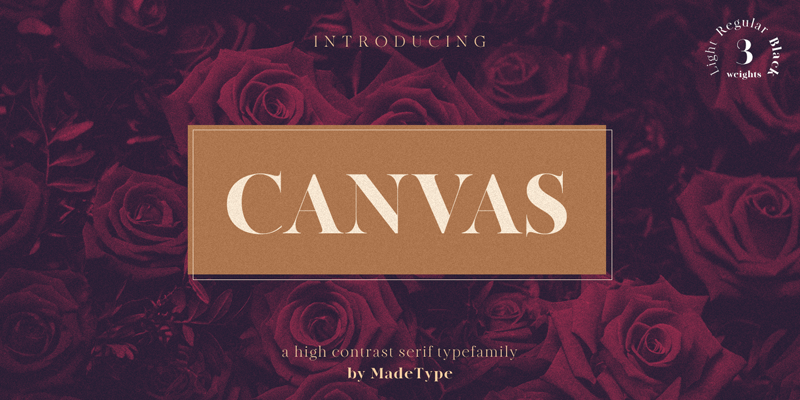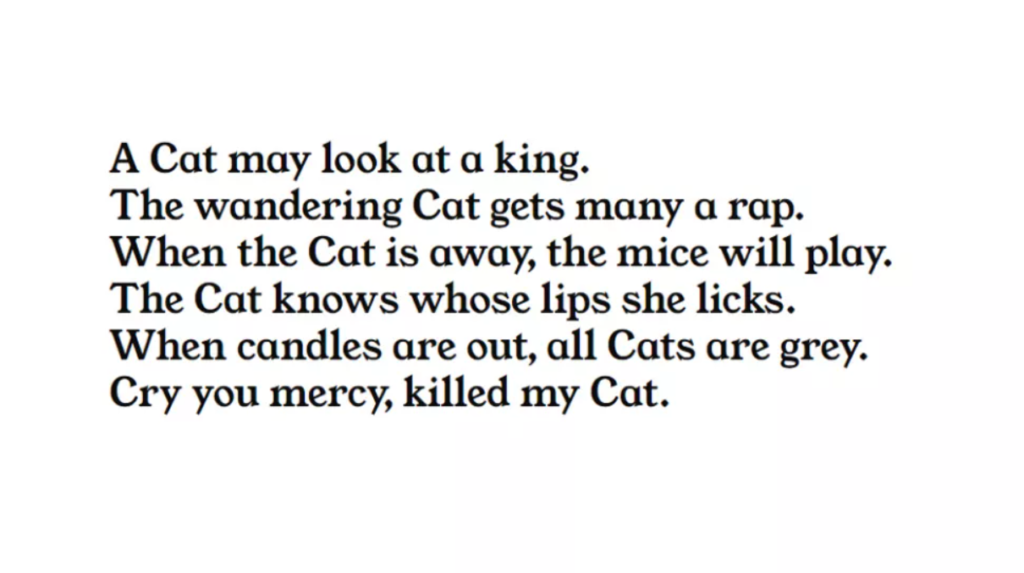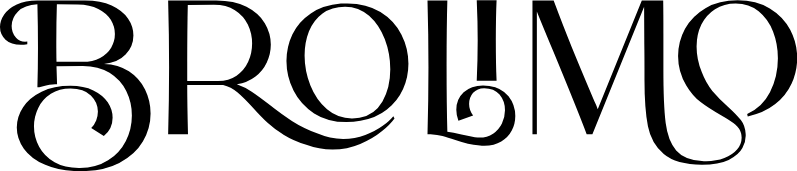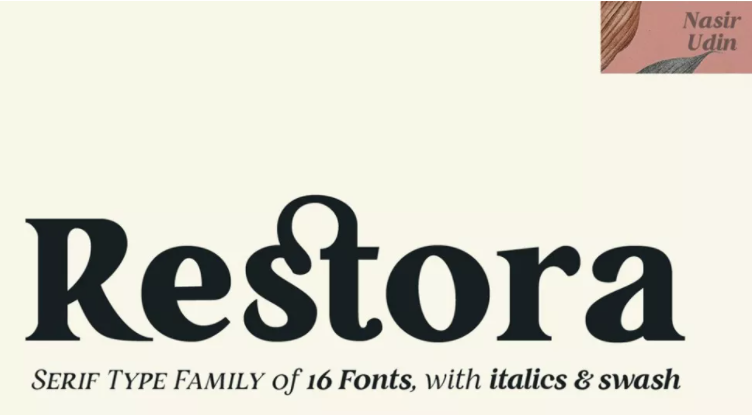
Fonts are essential components in creating a wide variety of text-based designs. Typography is all about finding the right balance between readability and impact. It enhances the visual appeal while preserving the aesthetic value of the design. Setting the tone and ensuring a positive user experience is critical to the success of a design.
Finding attractive fonts for creative design projects may be time-consuming, particularly when designers have a specific style in mind. Additionally, the best fonts for designers have long been beyond their reach, but that is changing. Most of these typefaces are free or at a meager cost to designers, allowing them to produce high-quality designs.
Free fonts for designers may be found online and used to create a broad range of designs. When it comes to picking the suitable typeface for a particular design project, designers now have many options to use the best free fonts, primarily working on a personal project or a creative experiment.
Use of Fonts in Design
Fonts speak a distinct language. They may be casual or formal, exotic or simple in terms of look. Using suitable fonts, designers create a cohesive look and feel for their design work while also presenting it professionally.
Designers should give typography significant consideration and employ the best fonts for graphic design to create designs that offer an aesthetic value. Choosing the suitable typefaces enhances and complements the design. It aids readers in comprehending text material and attracts the target audience by using the proper font, color, and text size.
Fonts evoke a specific sensation or atmosphere. A more critical vibe may be achieved using simple, necessary, and professional fonts. When used correctly in a design project, the typography conveys a high level of expertise. It is at the heart of professional design.
Fonts are available in a variety of styles and designs. Let us delve deep into understanding the collection of best free fonts designers should download to create a visual impact on the design.
29 Best Free Fonts for Designers to Download
1. Young Serif
Created by Bastien Sozeau, this free font for designers features robust old-style letterforms with bracketed serifs, similar to Plantin Infant and ITC Italian Old Style. Young serif contains 348 glyphs and is available in a single medium weight to accommodate many languages.
2. Canvas
With an understated design focussing on letter thickness, Canvas is an excellent choice for the modern office environment. This is the typeface to choose if you seek both formality and originality in one package.
3. Brolimo
Brolimo is a sophisticated typeface used for many modern design projects, including social media headers, fashion company logos, and more. The free version of the typeface may be downloaded and used for personal projects.
4. Cormorant
Cormorant, designed by Christian Thalmann of Catharsis Fonts, is an exquisitely formal design. All the glyphs have been created from scratch, making it a pleasing mix of elegance and emotion in each one. This free and open-source display typeface collection includes 45 font files in nine visual styles.
5. Modeno
The Modeno typeface is in line with the thin designs that have become more popular among modern designers. There are many sans-serif typefaces, but this one stands out because of its slim appearance.
6. Restora
These free fonts show that old styles may still be modernized creatively. Restora, a typeface, combines bright and welcoming letterforms with traditional decoration. This typeface may be used for various purposes, including book covers, editorial writing, logos, and much more.
7. ITC Bauhaus
ITC Bauhaus, like Horizon, has a rounded, vintage style and is available in a variety of thicknesses. Thinner designs have a swinging mood, while thicker variants seem like the heading of an antique playbill.
8. Alegreya
There aren’t many best free fonts precisely designed for a specific purpose, but Typeface Alegreya is the best. One of the most exciting aspects of the calligraphic style is its dynamic and diverse rhythms, making it easier to comprehend lengthy texts.
9. Canterbury
Canterbury’s old-English stylings are a must-have for any collection of vintage typefaces, and this one is no exception. This is one of the best fonts for graphic design that’s great for creating logos similar to many of today’s most well-known newspapers.
10. Sandbrush
Sandbrush is one of the best fonts for designers looking for a rustic yet beautiful font. Many designers use this typeface to create greeting cards, quotes, branding, modern advertising design, poster quote, editorial design, and logos.
11. Monkstead
A wonderful display serif font for logos and headlines, Monkstead is used by many online logo creators and designers. This typeface may be used to create vintage headlines.